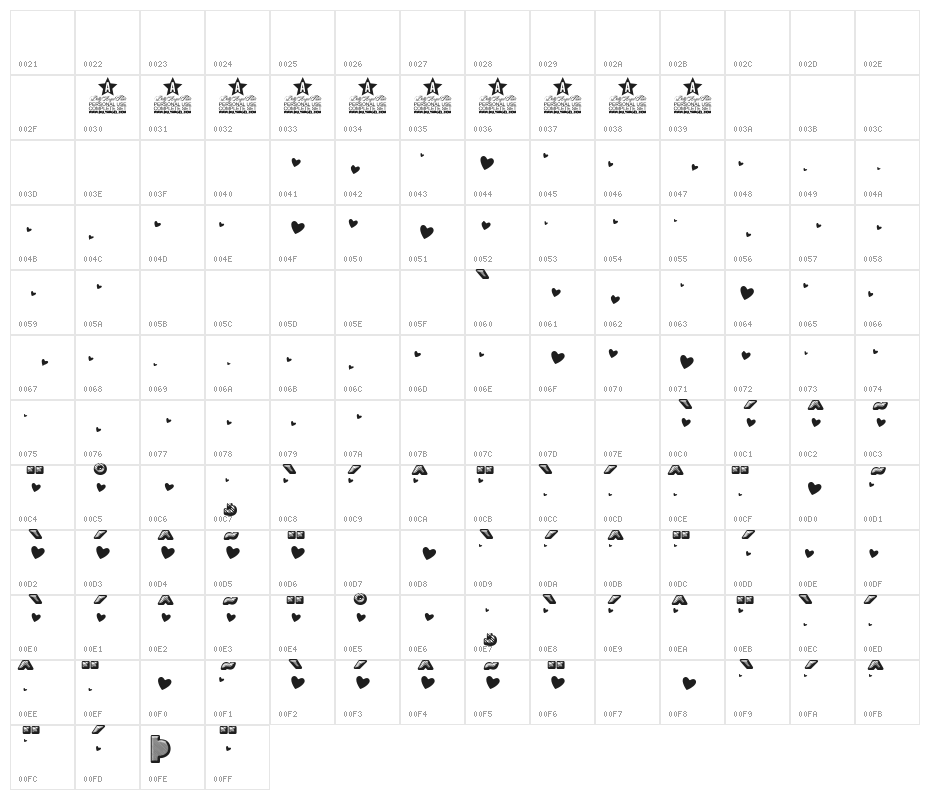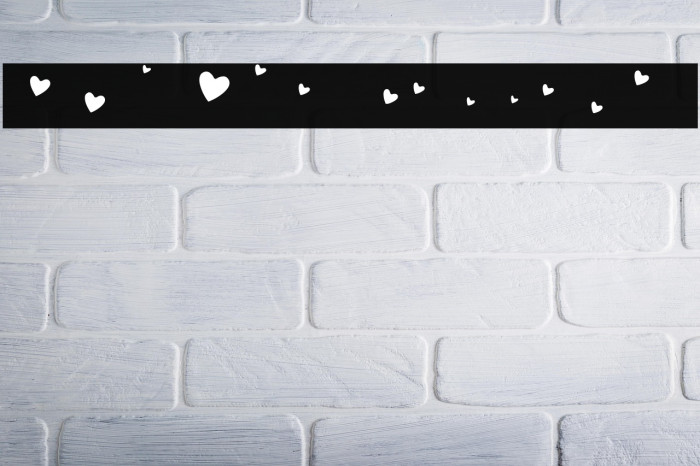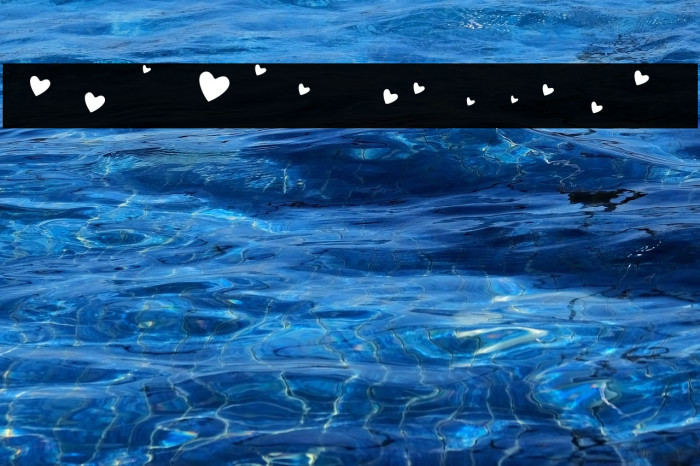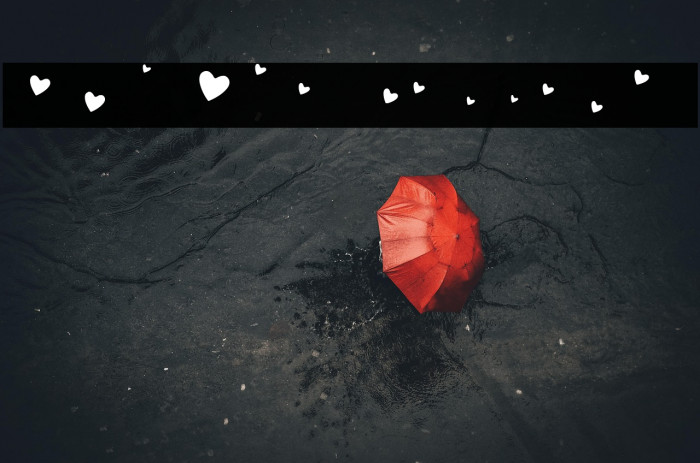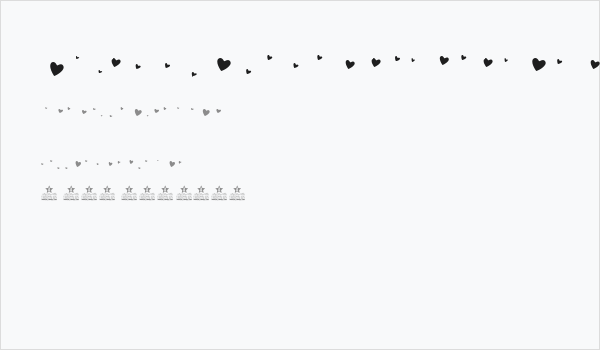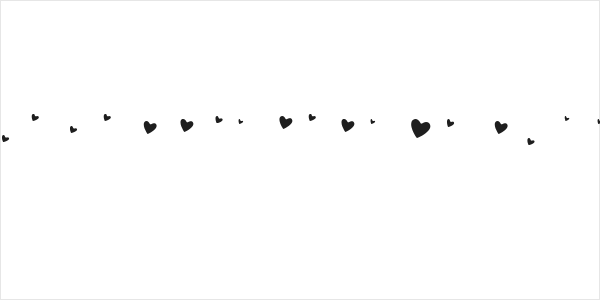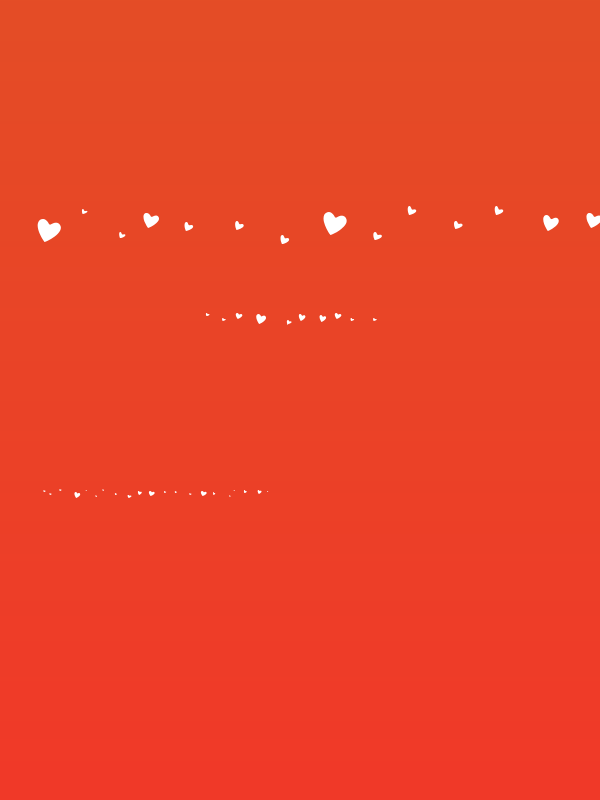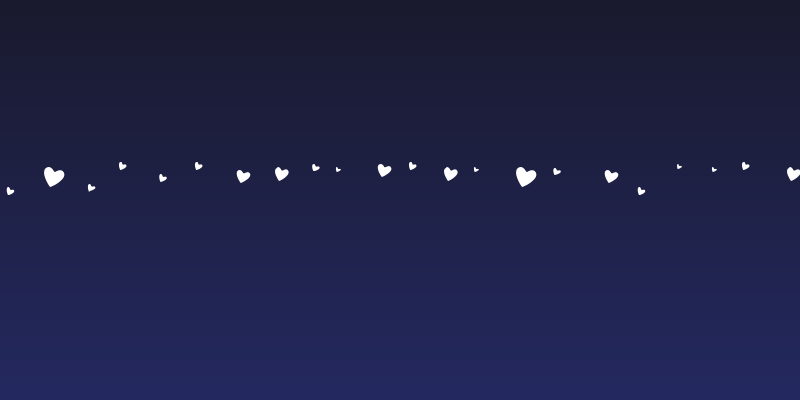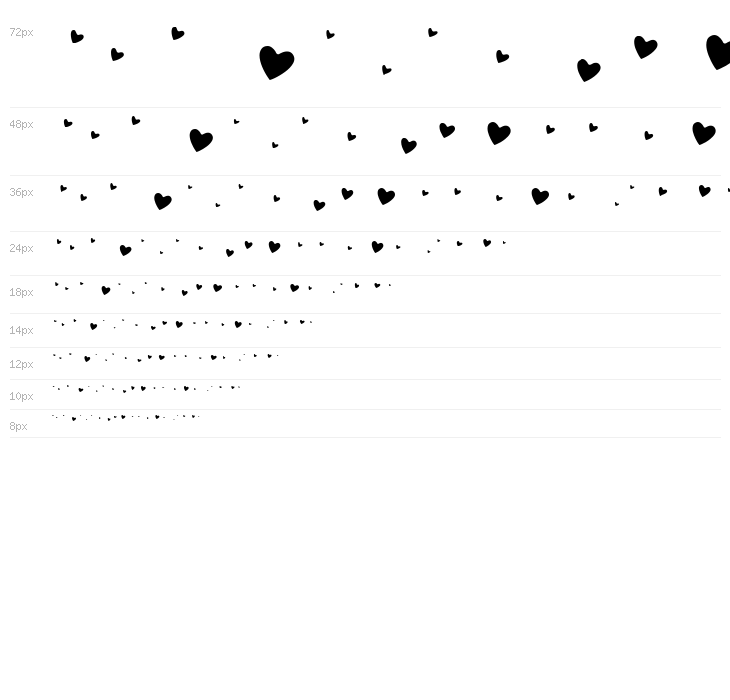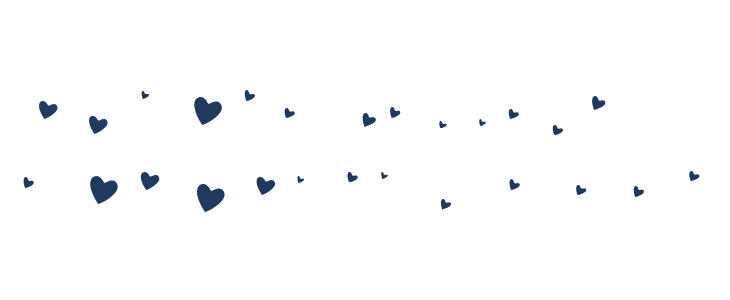
QUIRKY LOVE HEARTS PERSONAL USE Regular Font
QUIRKY LOVE HEARTS PERSONAL USE Regular Description
This font is a playful and decorative typeface featuring heart shapes in place of traditional characters. It exudes a whimsical and romantic vibe, making it ideal for projects that require a touch of charm and affection. The heart motifs are consistent throughout, creating a cohesive and visually appealing design. This font is perfect for personal use, especially in projects related to love, romance, or any theme that benefits from a lighthearted and fun aesthetic. Its unique style makes it stand out, adding a creative flair to any design.
| Proposed Projects | Ideal for Valentine's Day cards, wedding invitations, love-themed posters, and personal crafts. |